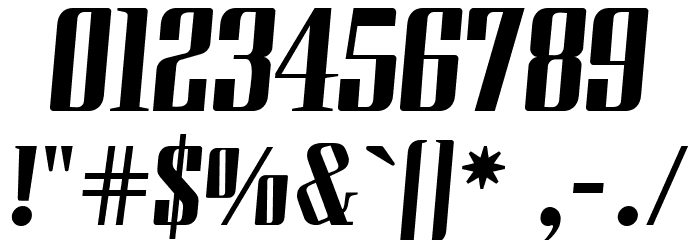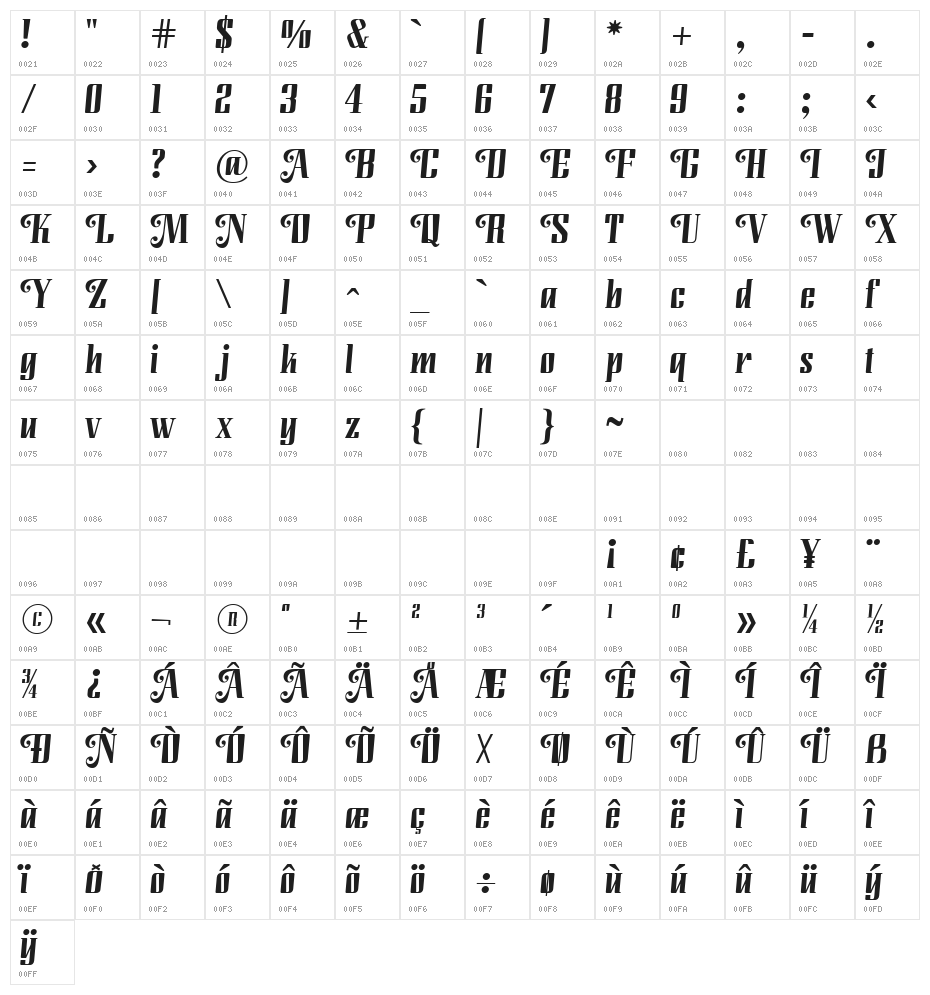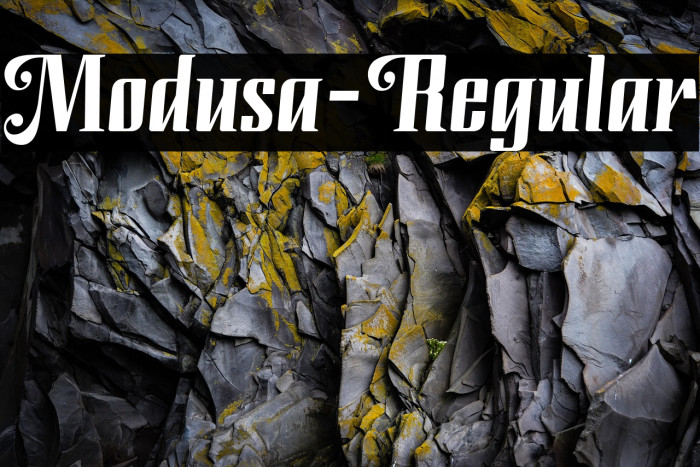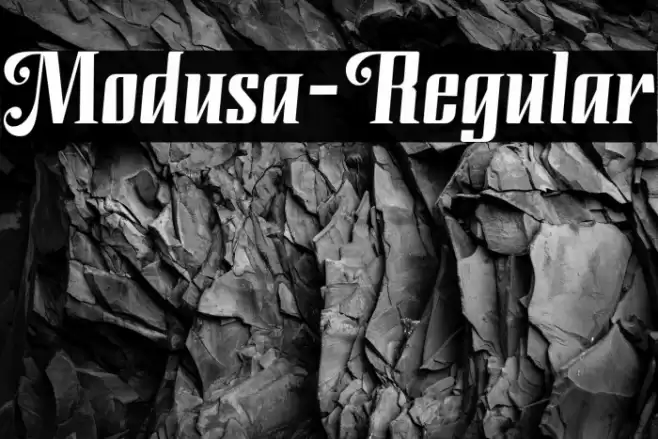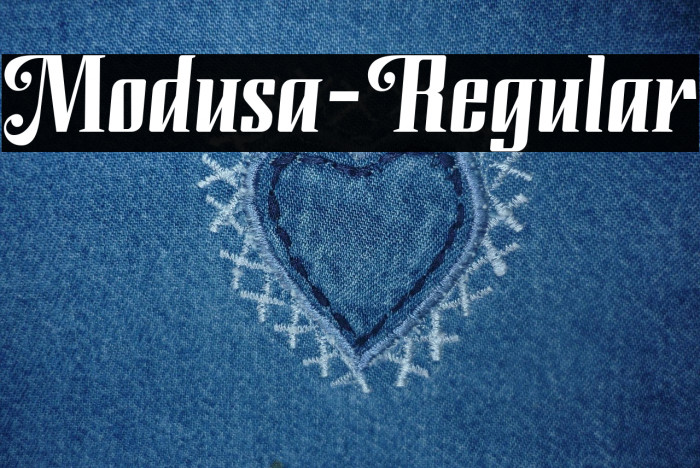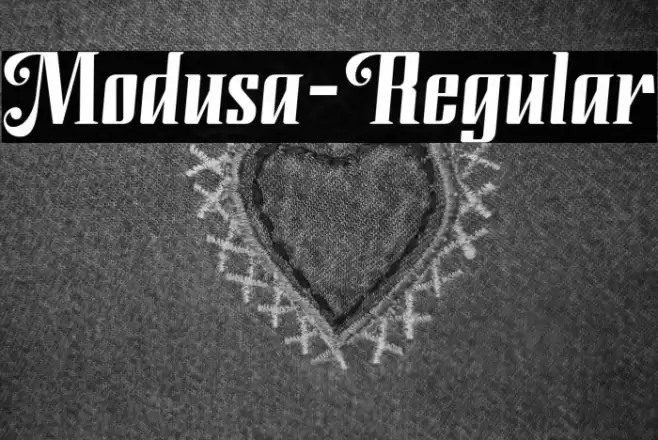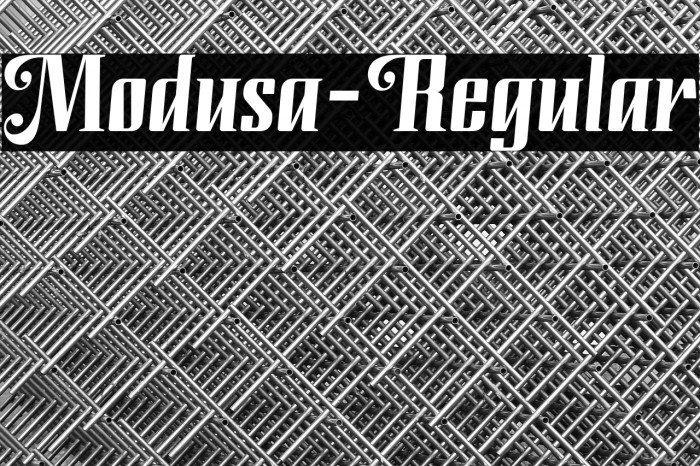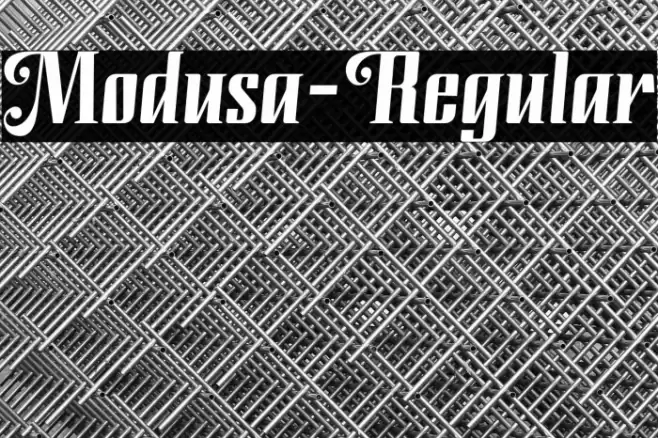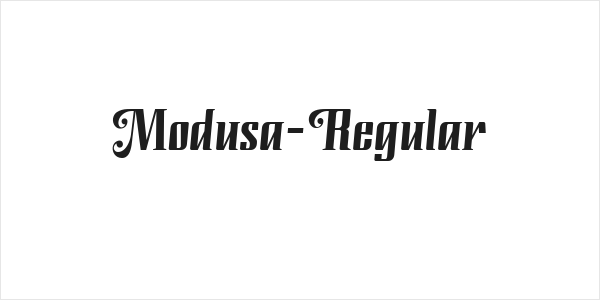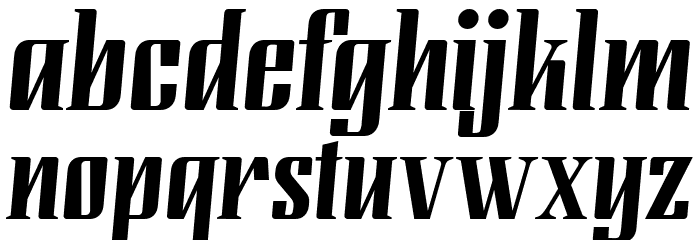
Modusa-Regular Font
Modusa-Regular Description
This font features a unique blend of bold, decorative elements with a modern twist. The uppercase letters are characterized by elegant swirls and flourishes, giving them a distinct, artistic flair. The lowercase letters maintain a strong presence with their bold strokes and slightly condensed form, ensuring readability while retaining a stylish appearance. The numerals are consistent with the overall design, offering a bold and impactful look. Special characters are thoughtfully designed to complement the alphabet, making this font versatile for various creative applications.
Overall StyleModern, Decorative
Proposed ProjectsIdeal for branding, poster design, album covers, and any project requiring a bold, artistic touch.